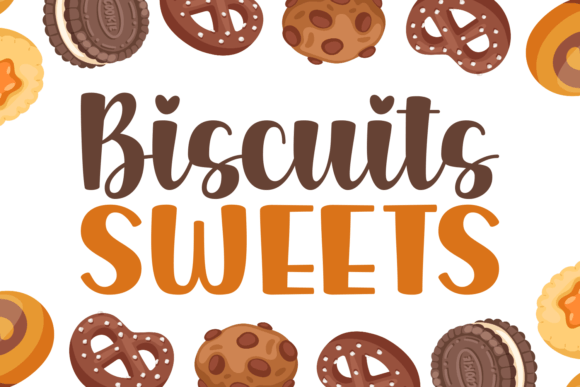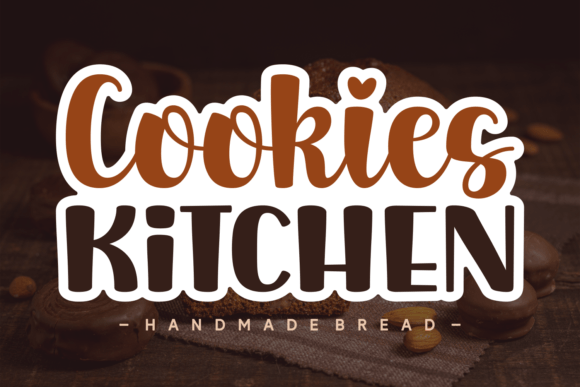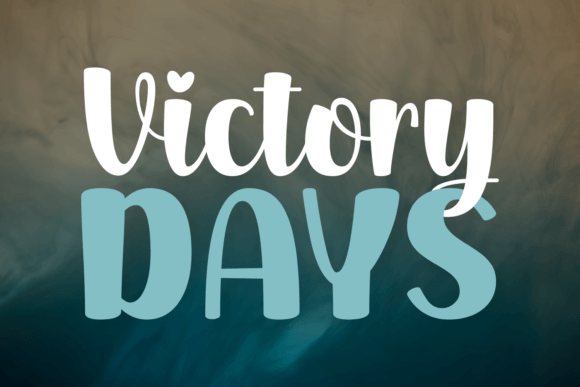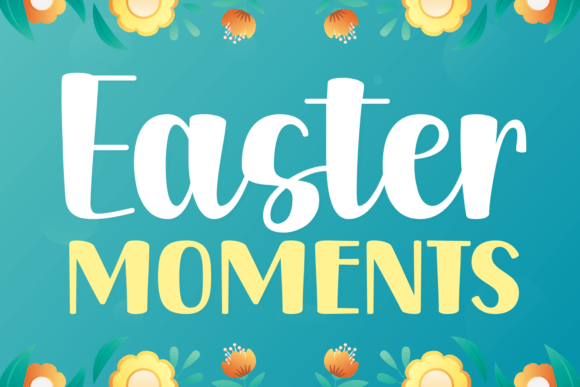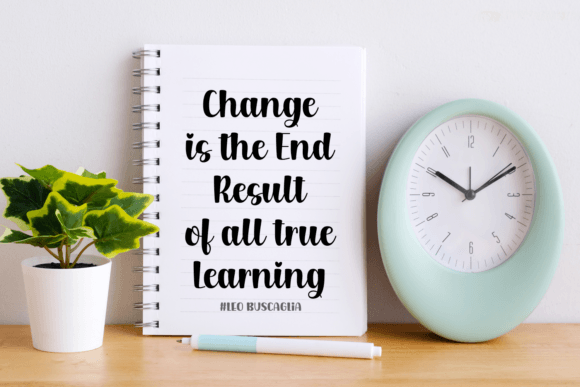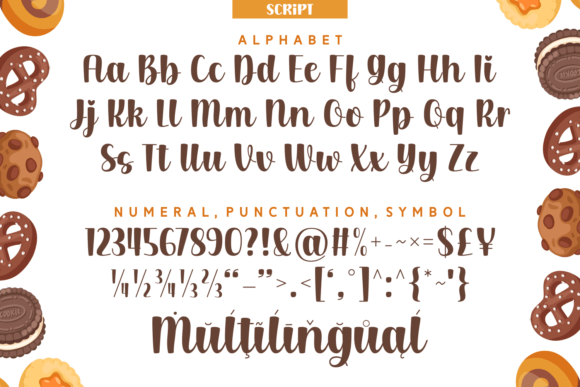
The Sweet Spot: Discovering the Charm of Chocolate Bread Font
I still remember the design project that led me to discover the lovely Chocolate Bread Font. I was working on a wedding invitation suite, and my client had a very specific vision: elegant, handwritten, and with a personal touch. I had spent hours browsing through font libraries, but nothing seemed quite right. That was when I stumbled upon Chocolate Bread Font, and it was love at first sight! ✨
As a designer, I appreciate fonts that offer a unique character without being too over-the-top. Chocolate Bread Font delivers on that promise, and here’s what I love about it:
- 💕 Elegant and tasteful style, perfect for wedding invitations, greeting cards, and logos.
- 📝 Natural handwriting feel that adds a personal touch to any design project.
- 👍 Highly legible, even in smaller font sizes.
Of course, no font is perfect, and there are a few quirks to consider:
- 🤔 Some users might find the font a tad too script-heavy for certain design projects.
- ⚠️ As with any script font, it may not be the best choice for body text or long blocks of text.
The Story Behind Chocolate Bread Font
While I couldn’t find any information on the exact origins of Chocolate Bread Font, I like to imagine that it was created by a passionate designer who loves baking (and chocolate bread, of course!). Perhaps they wanted to capture the warmth and comfort of freshly baked bread in a font that would bring joy to designers and crafters alike.
Here are some questions I’ve encountered while working with Chocolate Bread Font:
| Is Chocolate Bread Font suitable for body text? | No, Chocolate Bread Font is best used for headings, titles, or short blocks of text. |
| Is Chocolate Bread Font available in different font weights? | Currently, Chocolate Bread Font is available in a single weight, but it’s designed to be versatile and elegant on its own. |